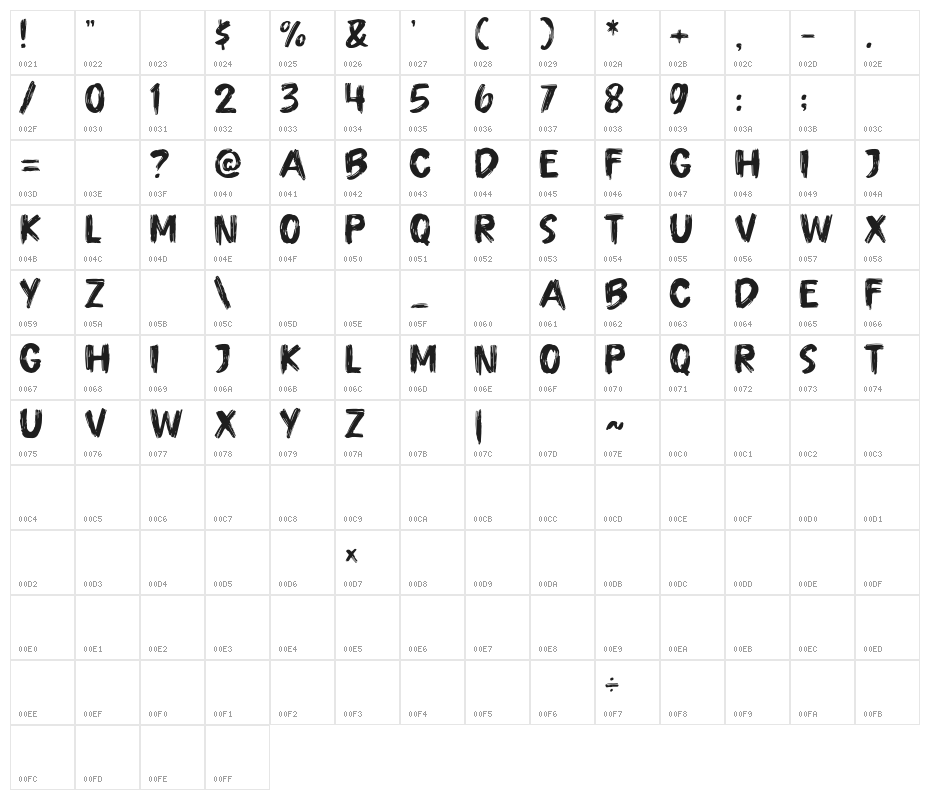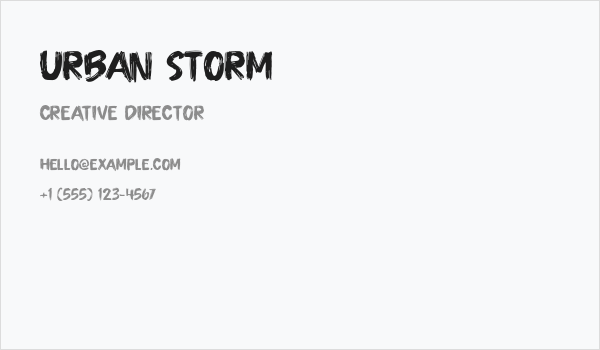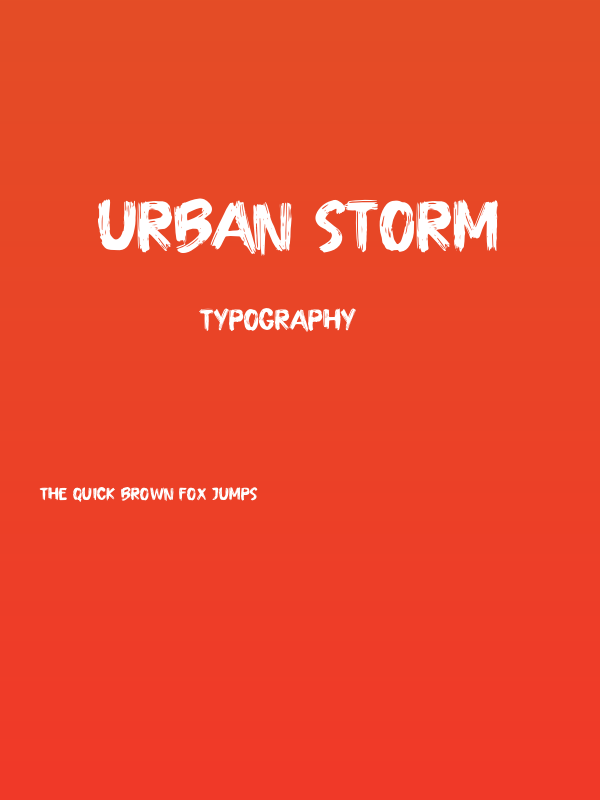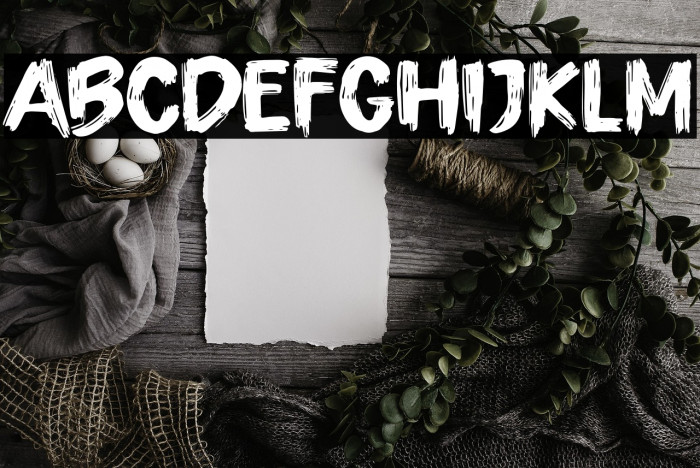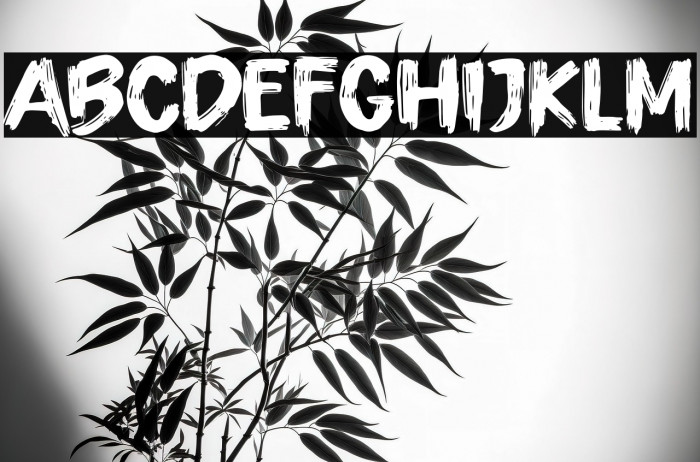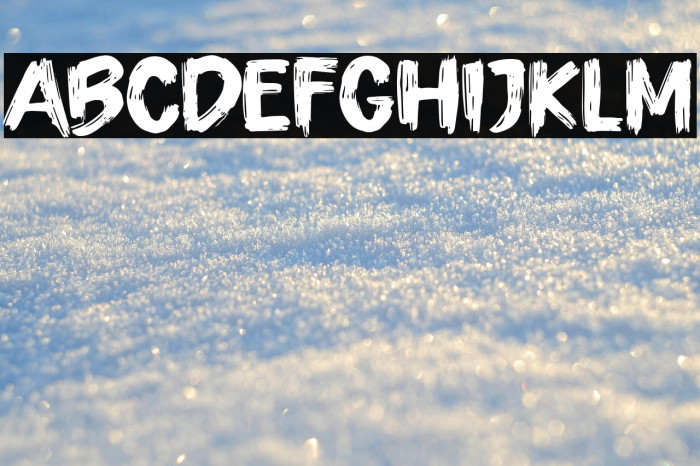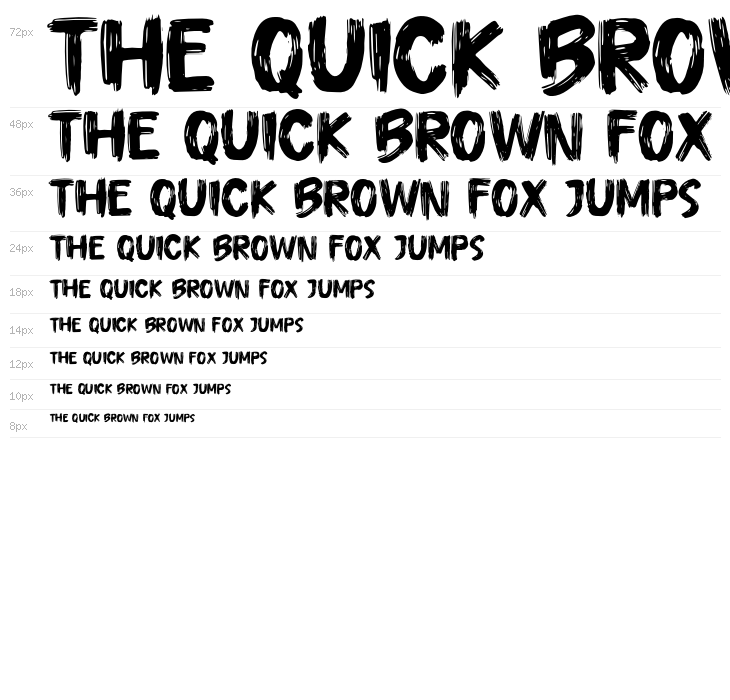
Urban Storm Font
Urban Storm Description
This font exudes a bold, dynamic energy with its brushstroke-like appearance, giving each character a sense of movement and intensity. The strokes are uneven and textured, reminiscent of urban graffiti or street art, which adds a raw, edgy feel. The uppercase and lowercase letters maintain a consistent style, with exaggerated curves and sharp angles that enhance its expressive nature. Numbers and special characters follow the same aesthetic, ensuring a cohesive look across all text elements. This font is perfect for projects that require a strong, impactful visual statement.
| Proposed Projects | Ideal for street art designs, music album covers, event posters, and branding that seeks a bold, edgy look. |